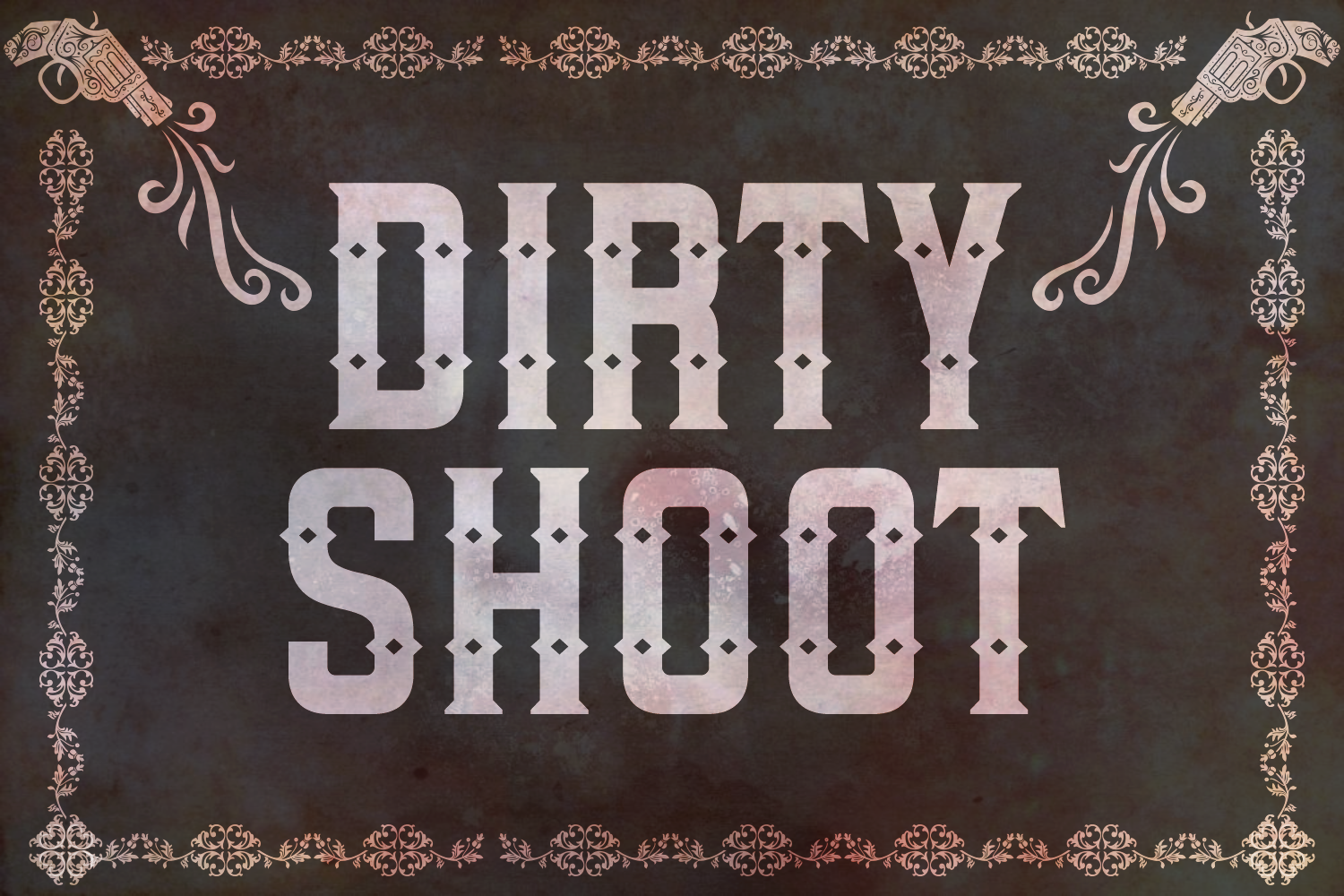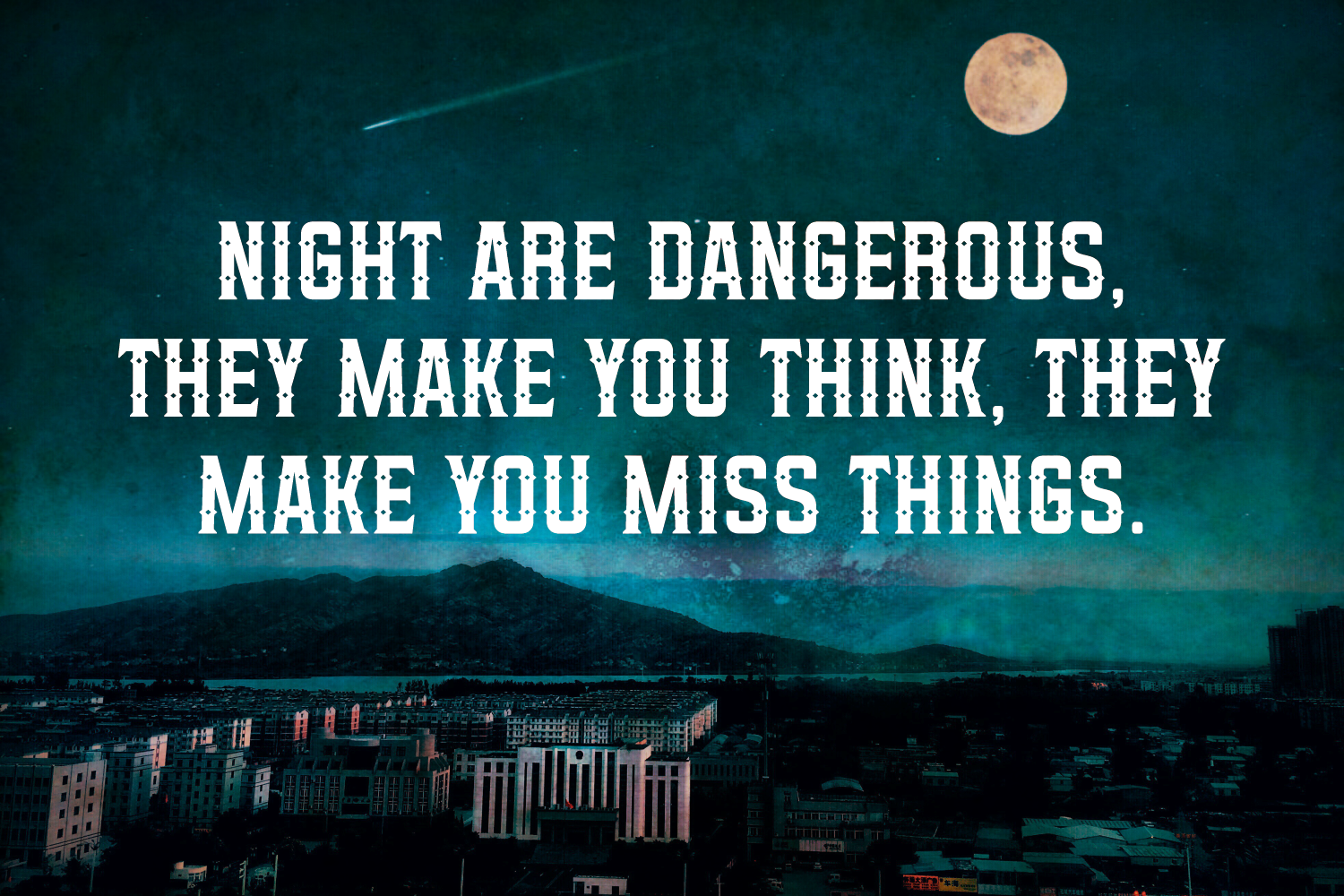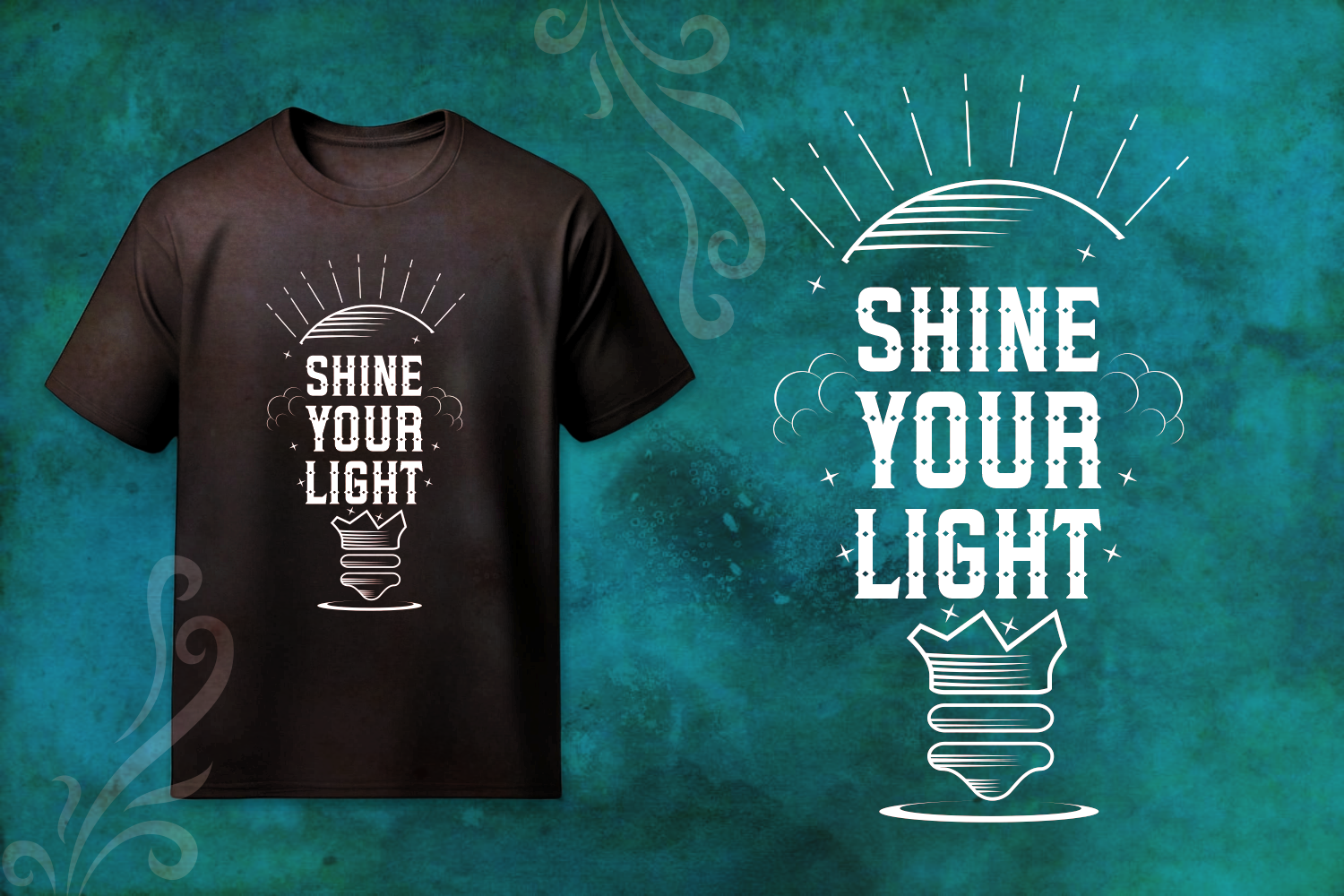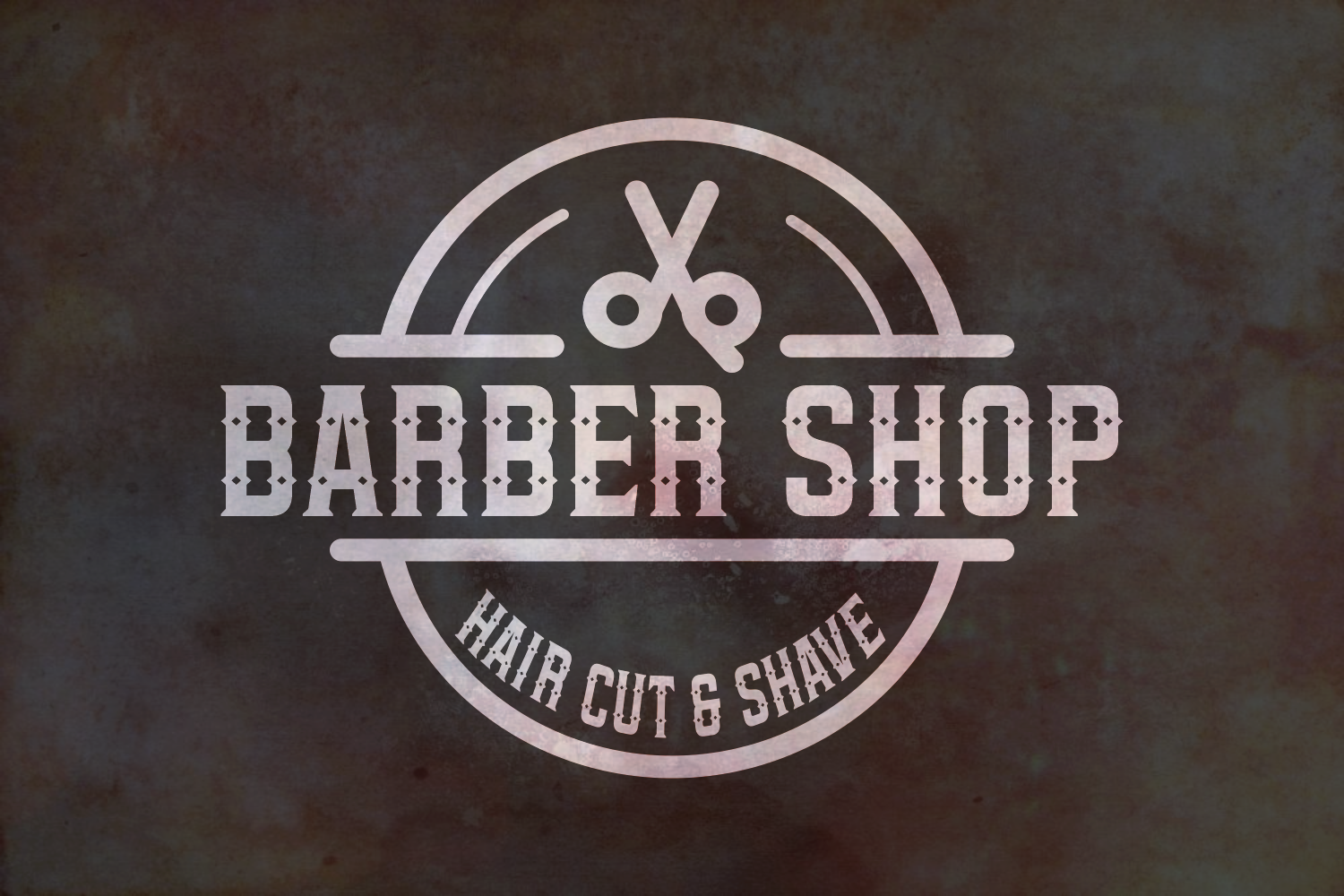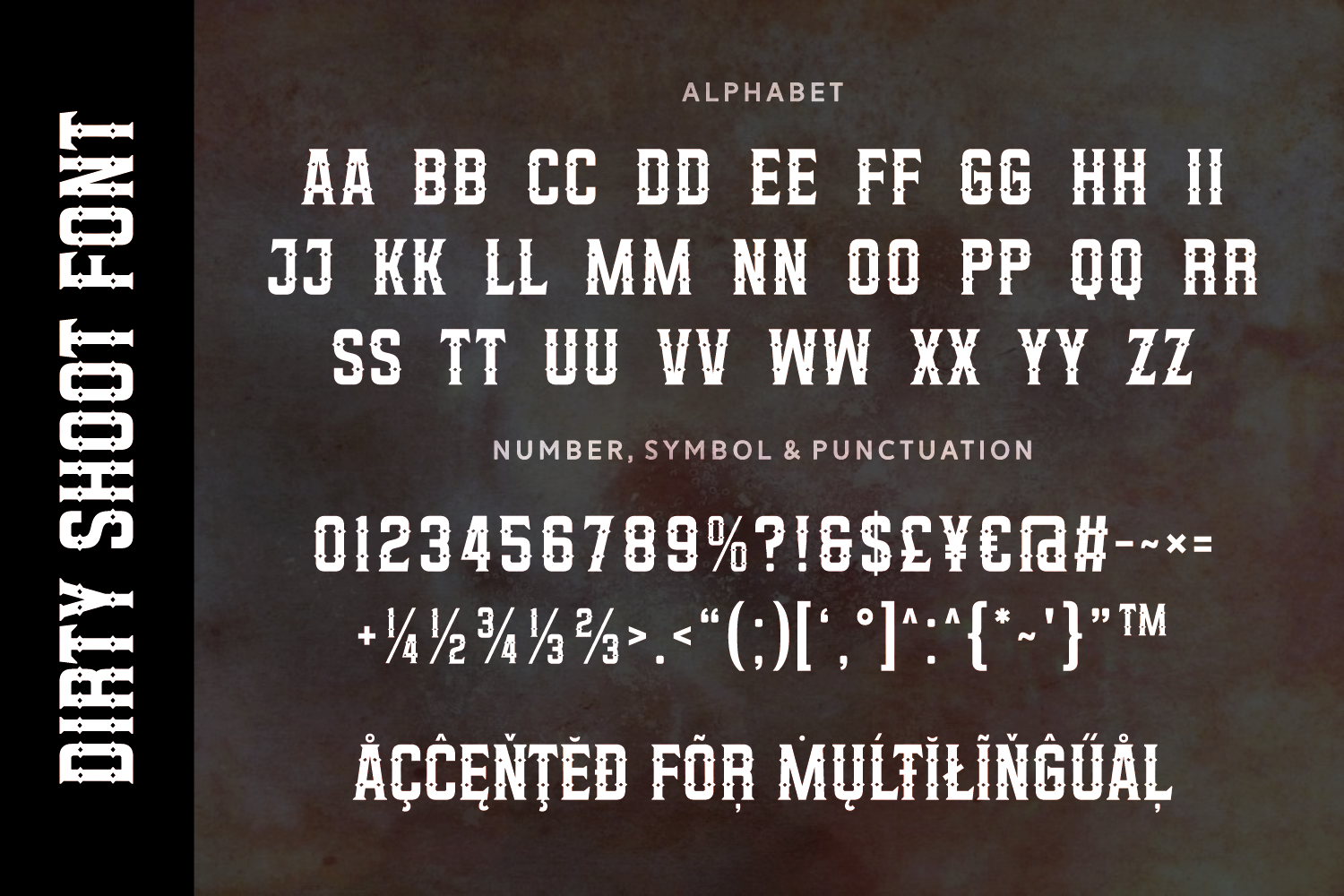
Dirty Shoot is a rugged western-style blackletter font with sharp edges and ornamental accents. Ideal for vintage posters, saloon signage, or bold event branding that needs an old-west grit and drama.